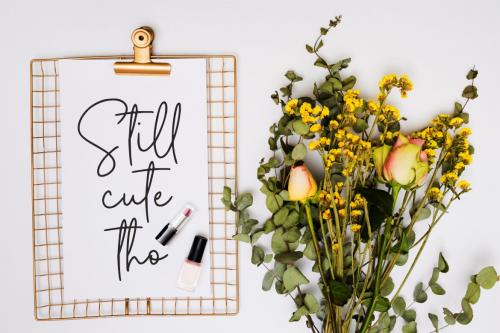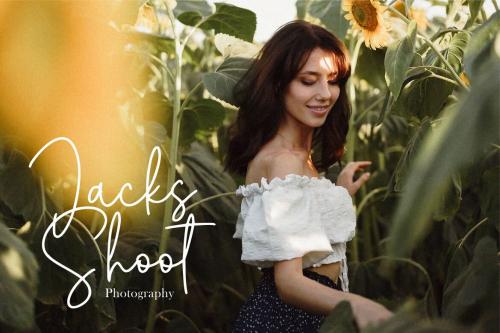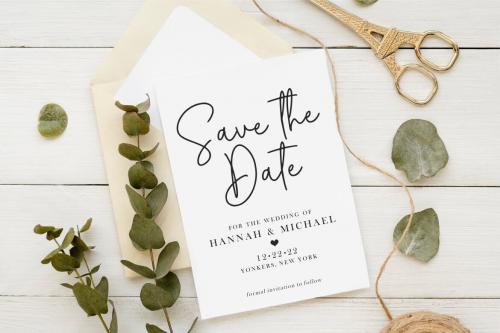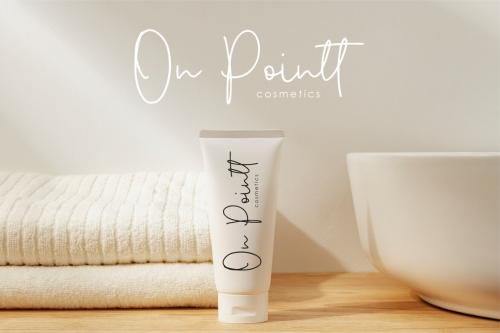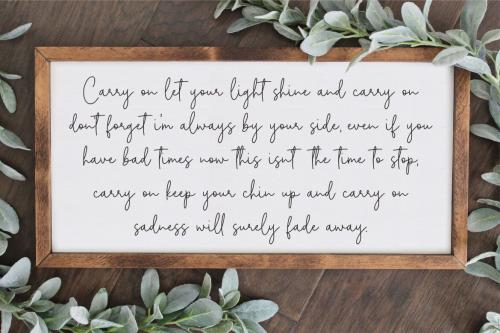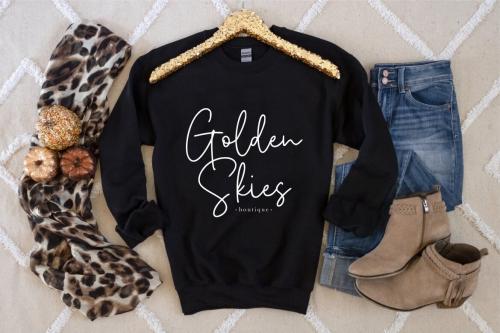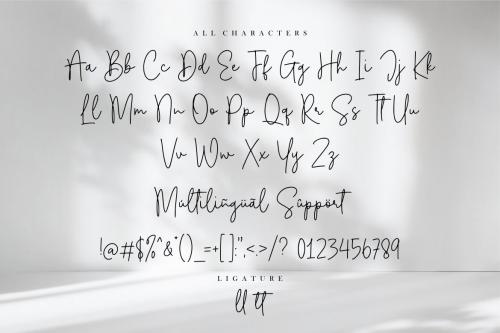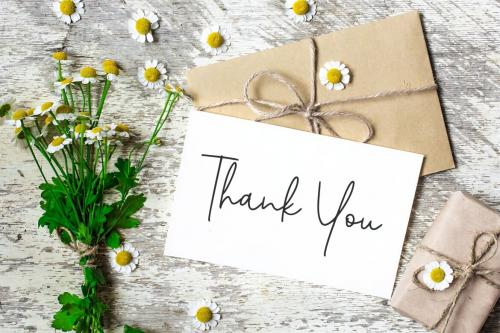
Introducing by Allouse.Studio
Proudly Present, Stonefloral
Stonefloral A Handwritten Font
Stonefloral is perfect for product packaging, branding project, megazine, social media, wedding, or just used to express words above the background.